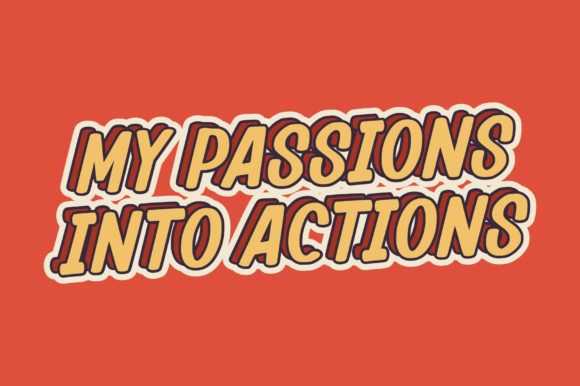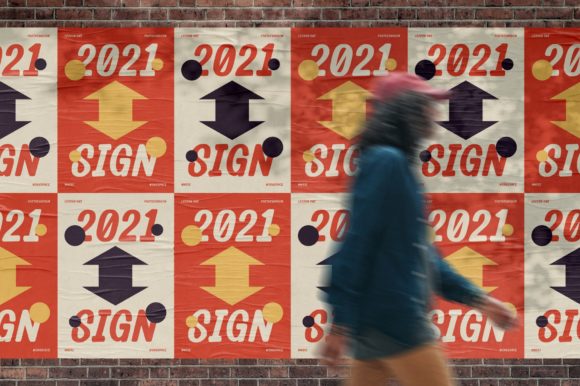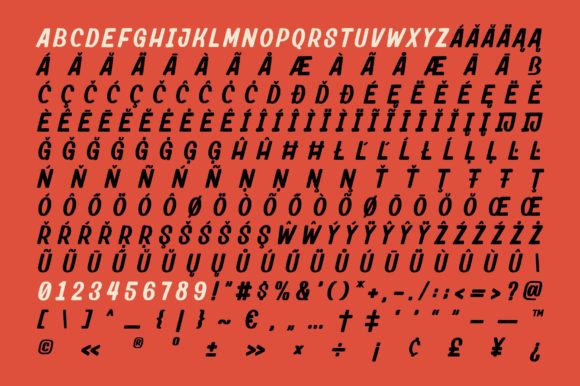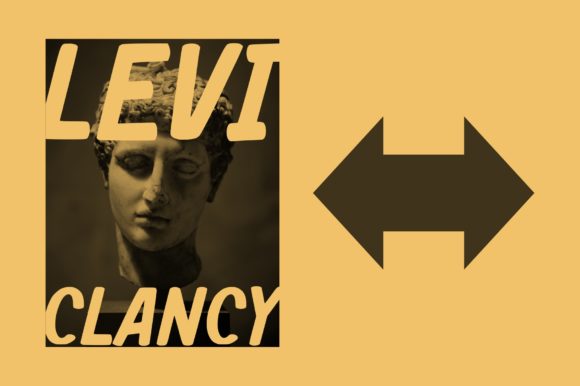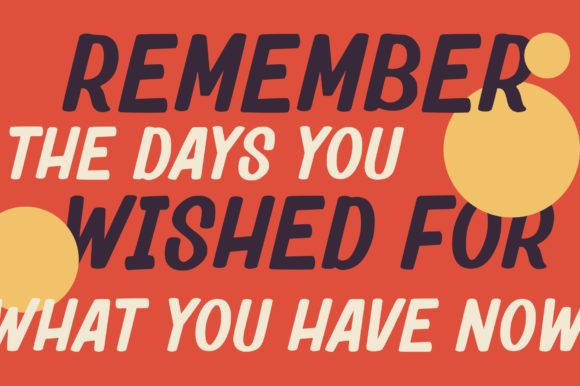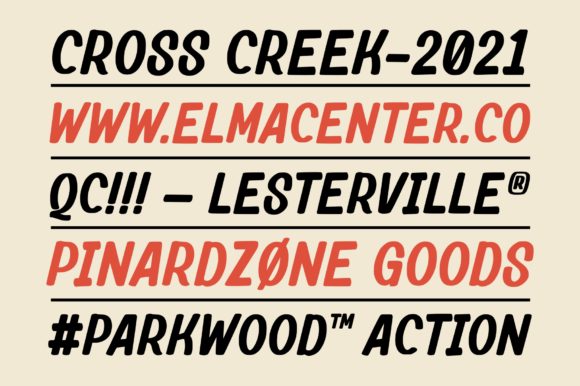
Introduction to Renaise Font
Renaise is a daring, vintage styled display font.
This original look will appeal to a wide range of crafty ideas, from letterheads and titles, to stationery .